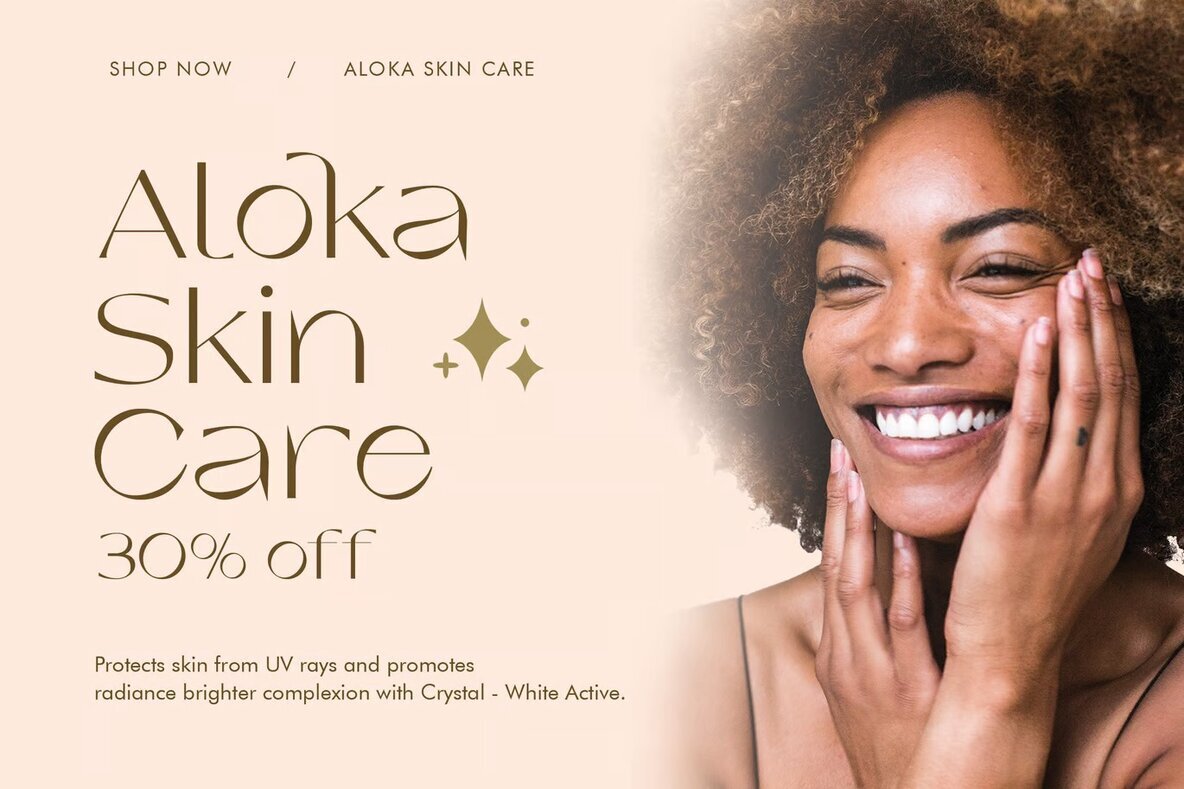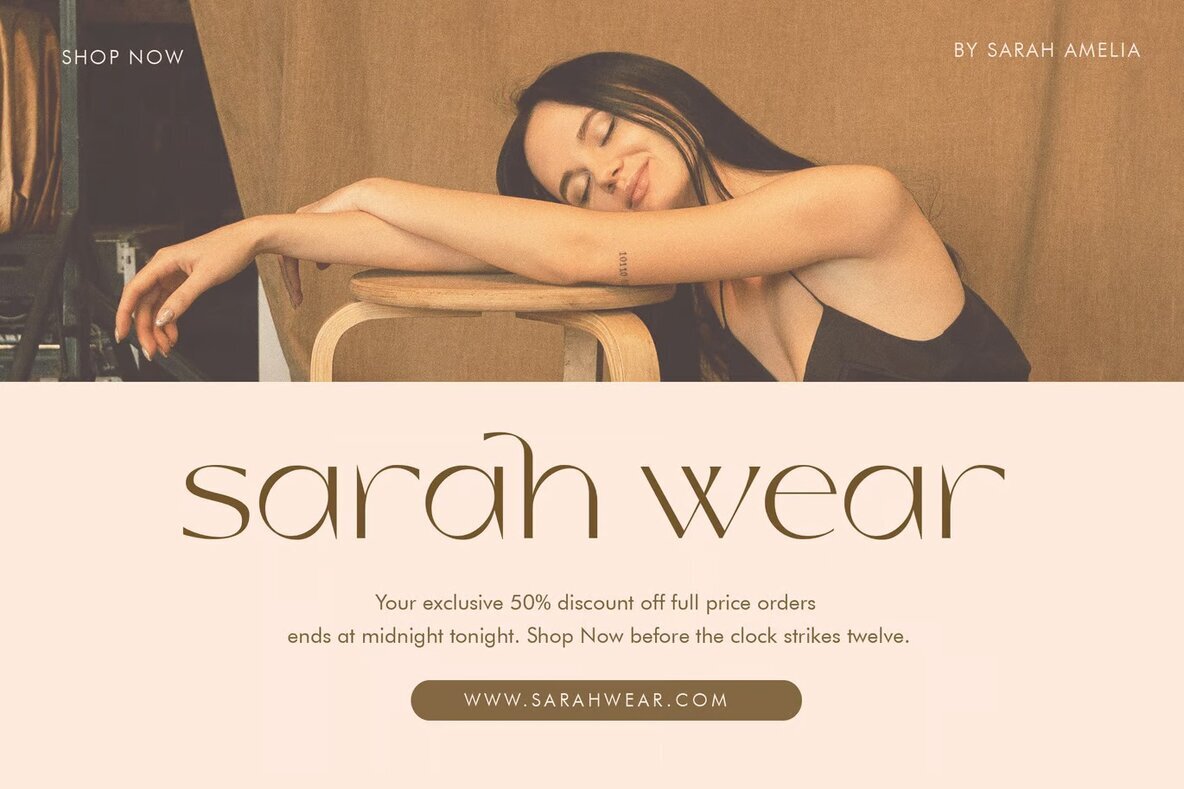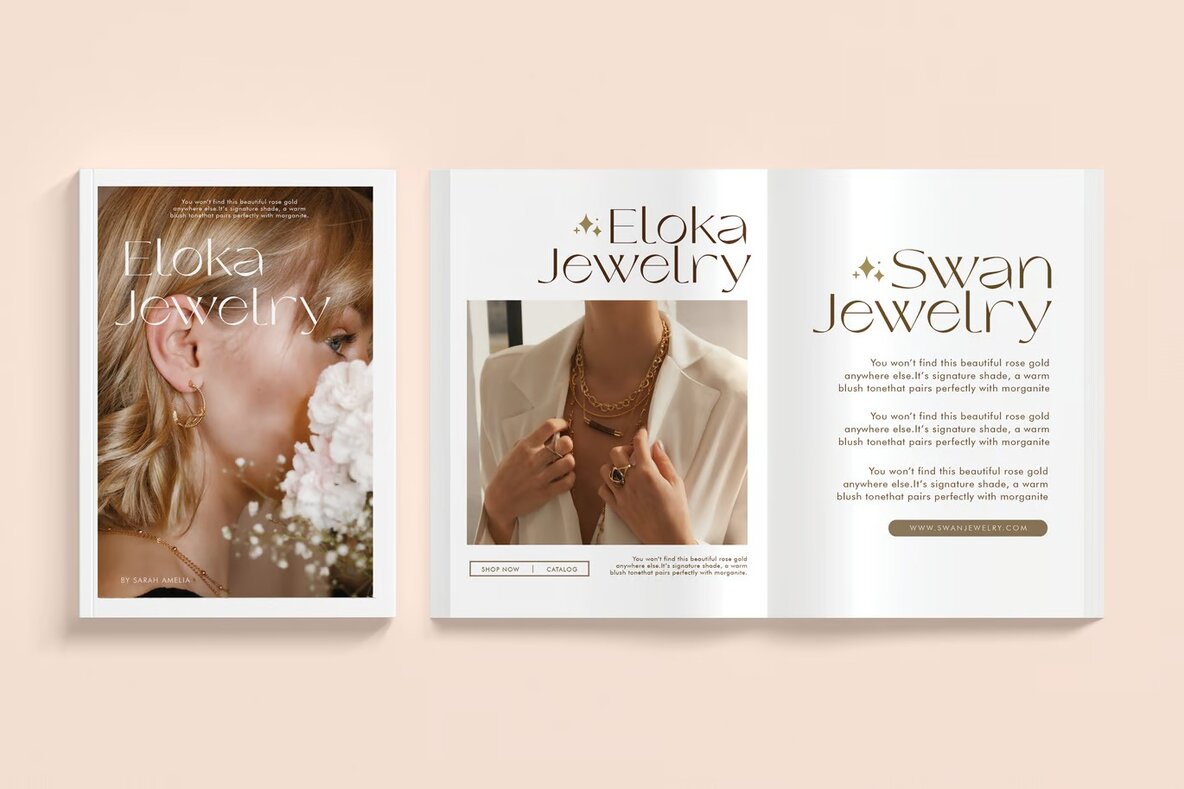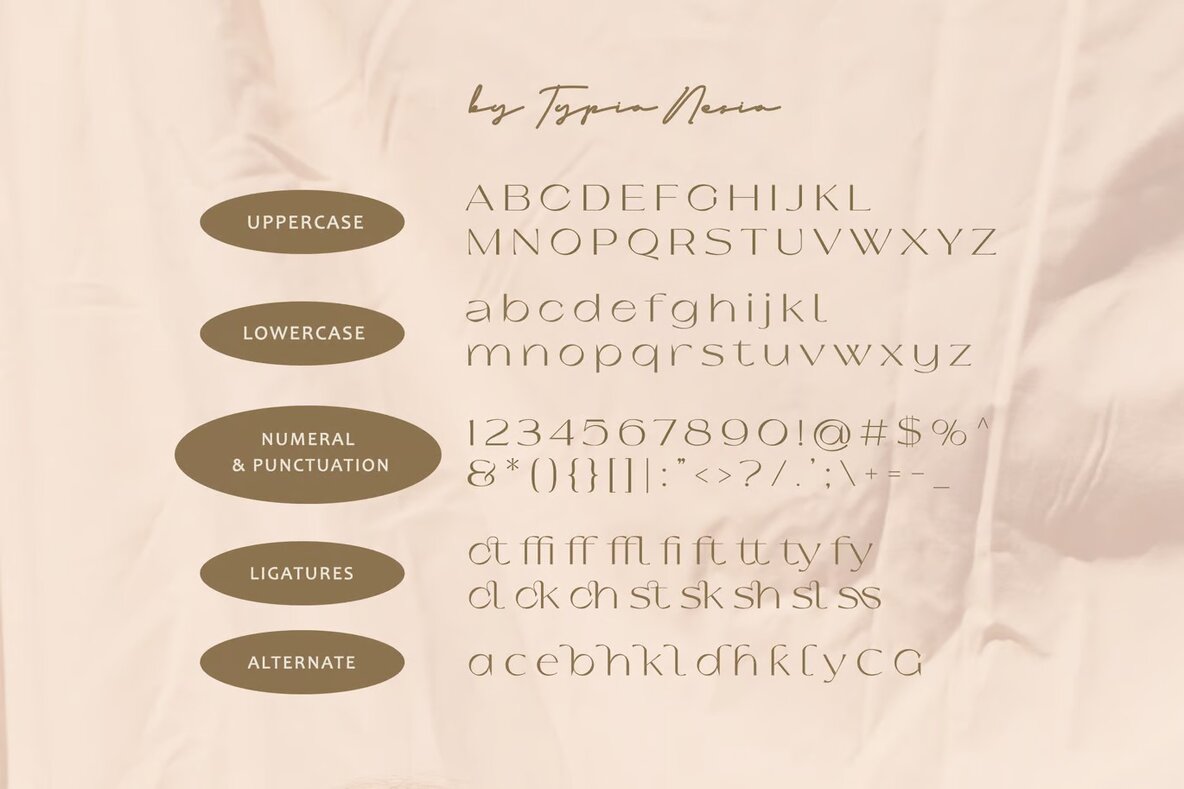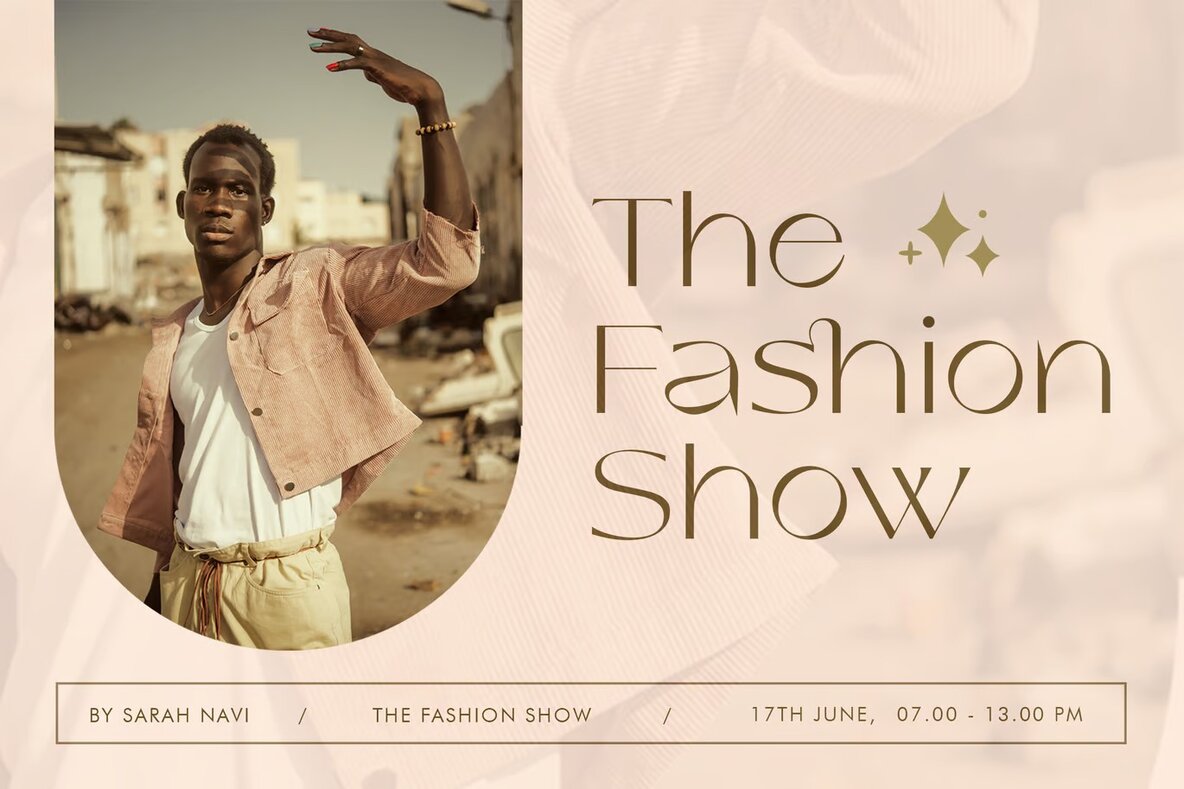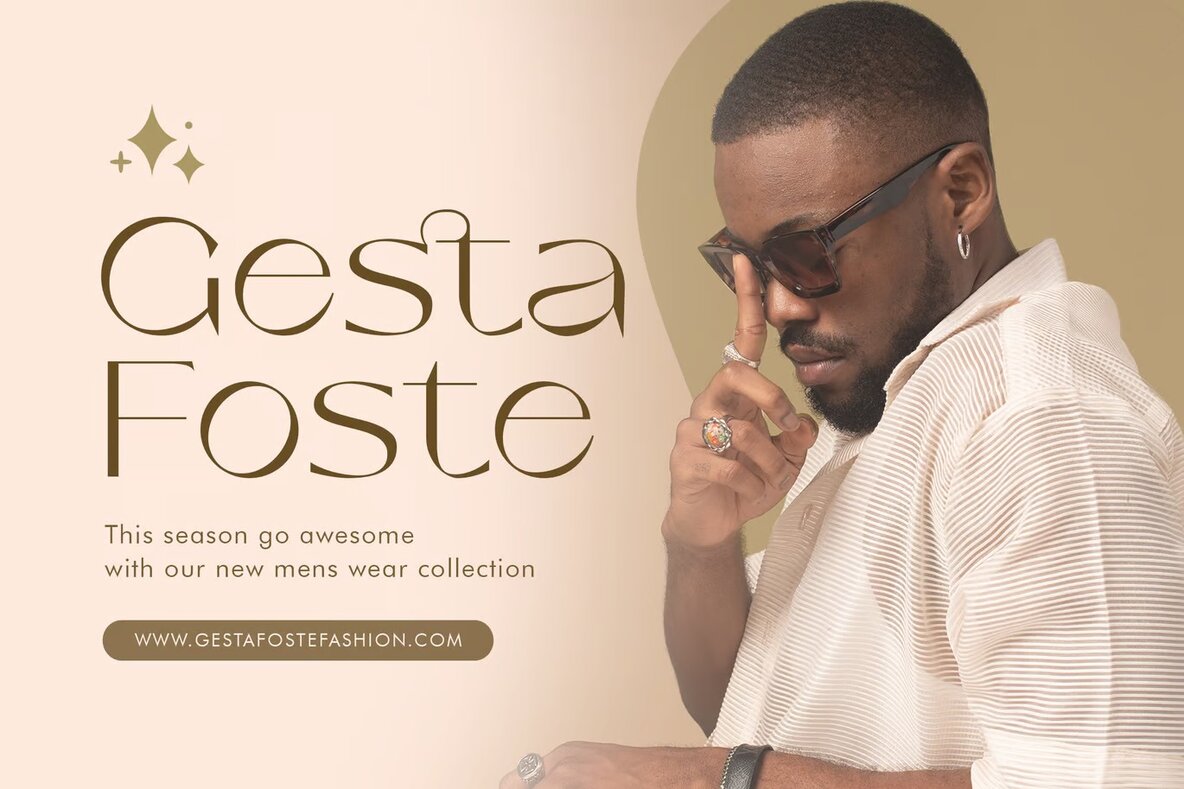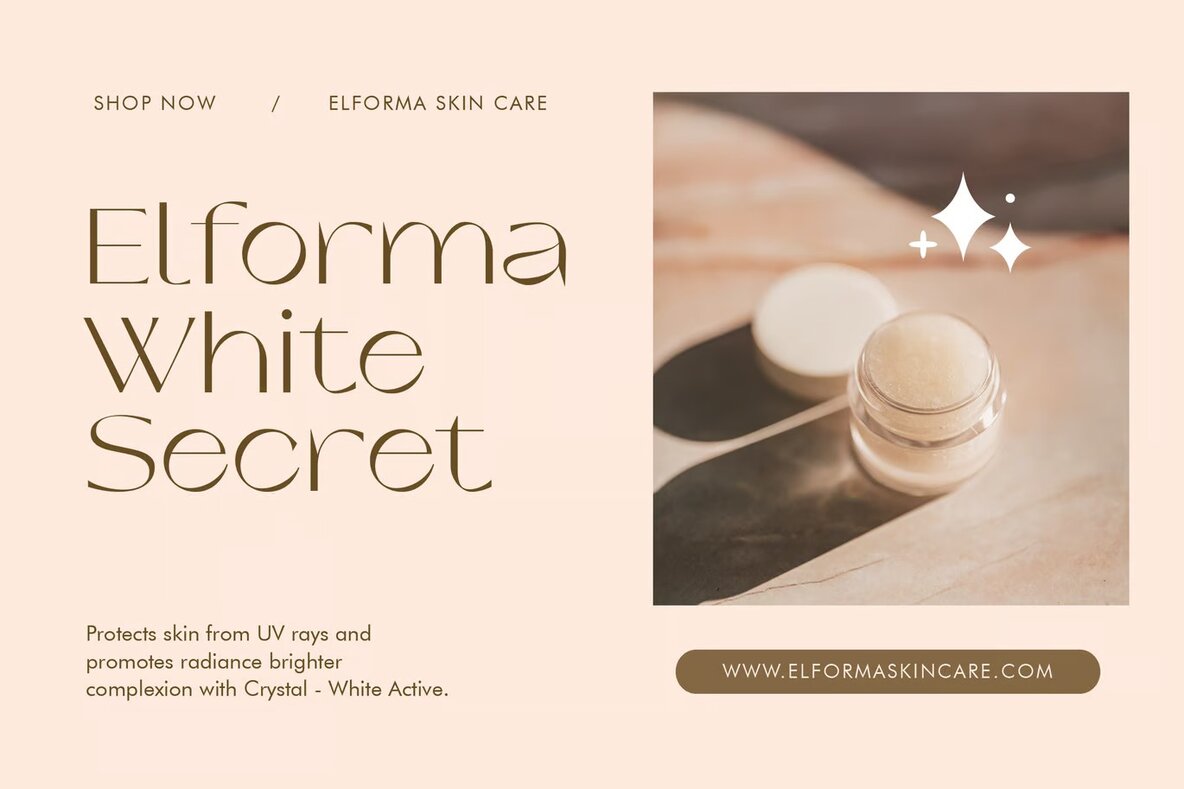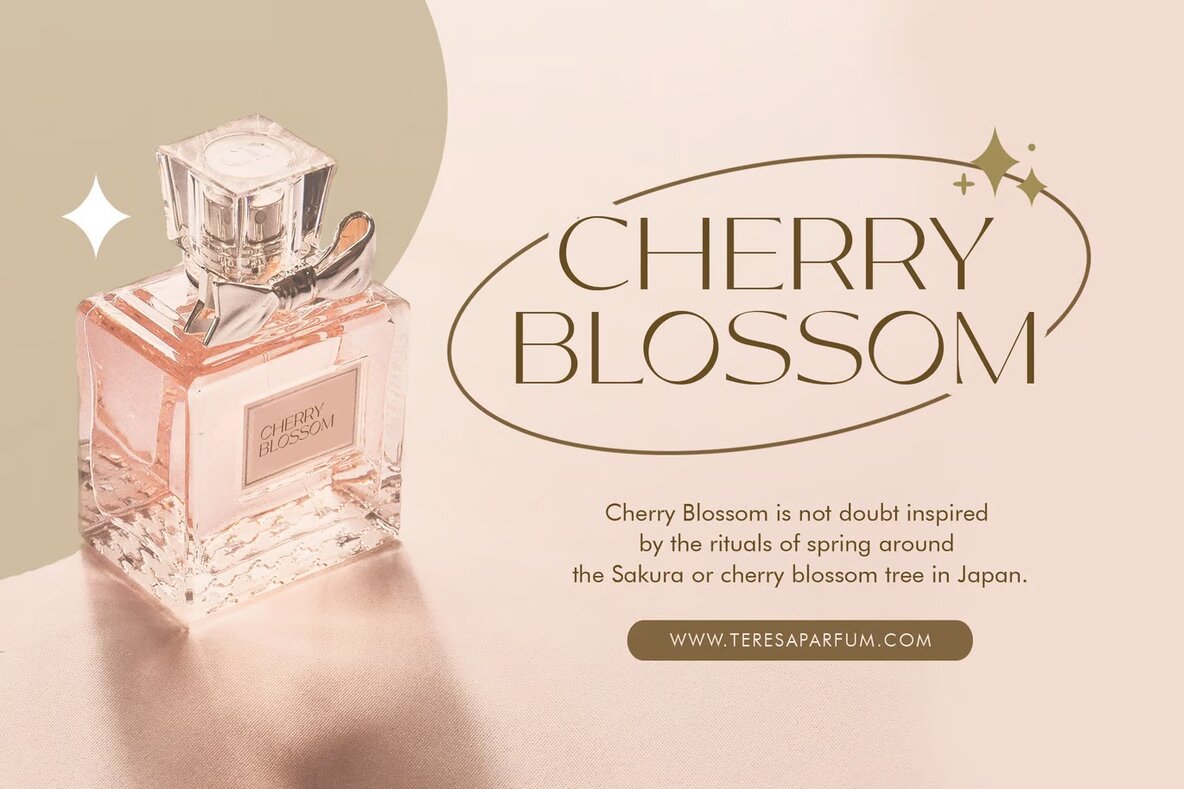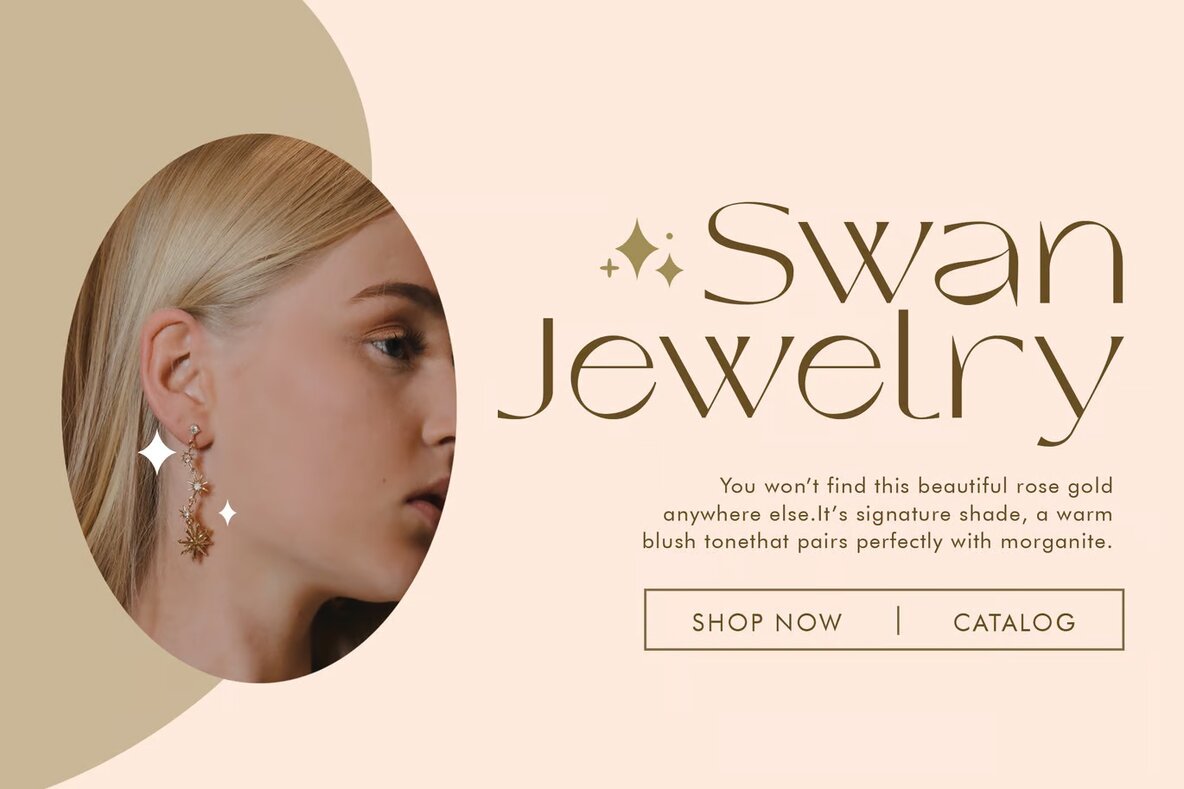
Cleodays Font
Cleodays Regular
Cleodays Sans Serif is a beauty that blends elegance with a modern expanded aesthetic, making it ideal for expressive and feminine branding projects. Featuring alternate glyphs and ligatures, this font offers versatile design possibilities. Whether you’re working on luxury logos, classy editorials, or fashion promotions, Cleodays Sans Serif brings a refined touch to any project.
Perfect for tasks ranging from cosmetic branding to boutique and museum design, this font also shines in stationery, modern advertising, and special event invitations. Its sophisticated style makes it suitable for art quotes, home decor, and book covers. Enhance your designs with Cleodays Sans Serif, beautifully crafted for a wide range of creative projects.